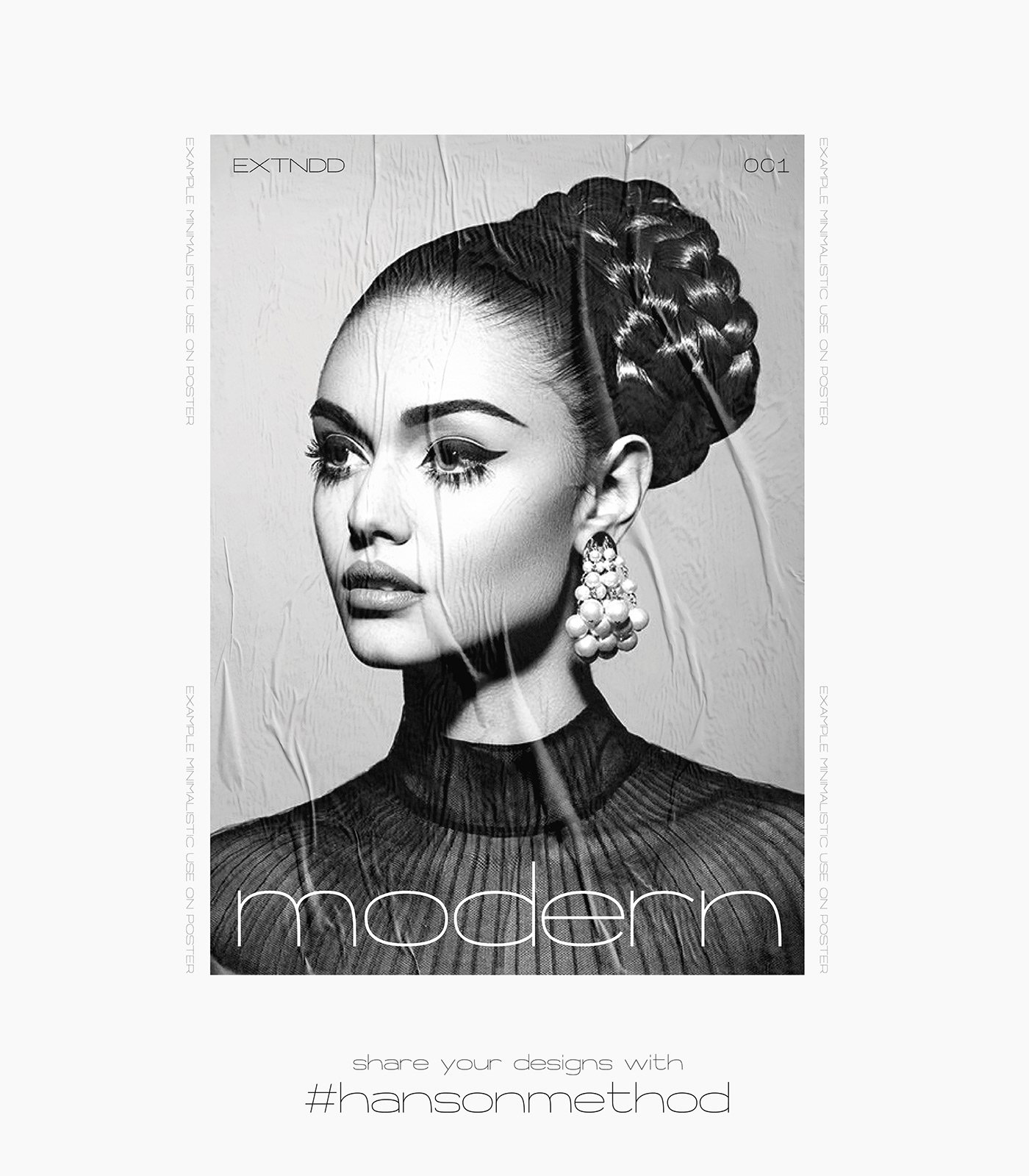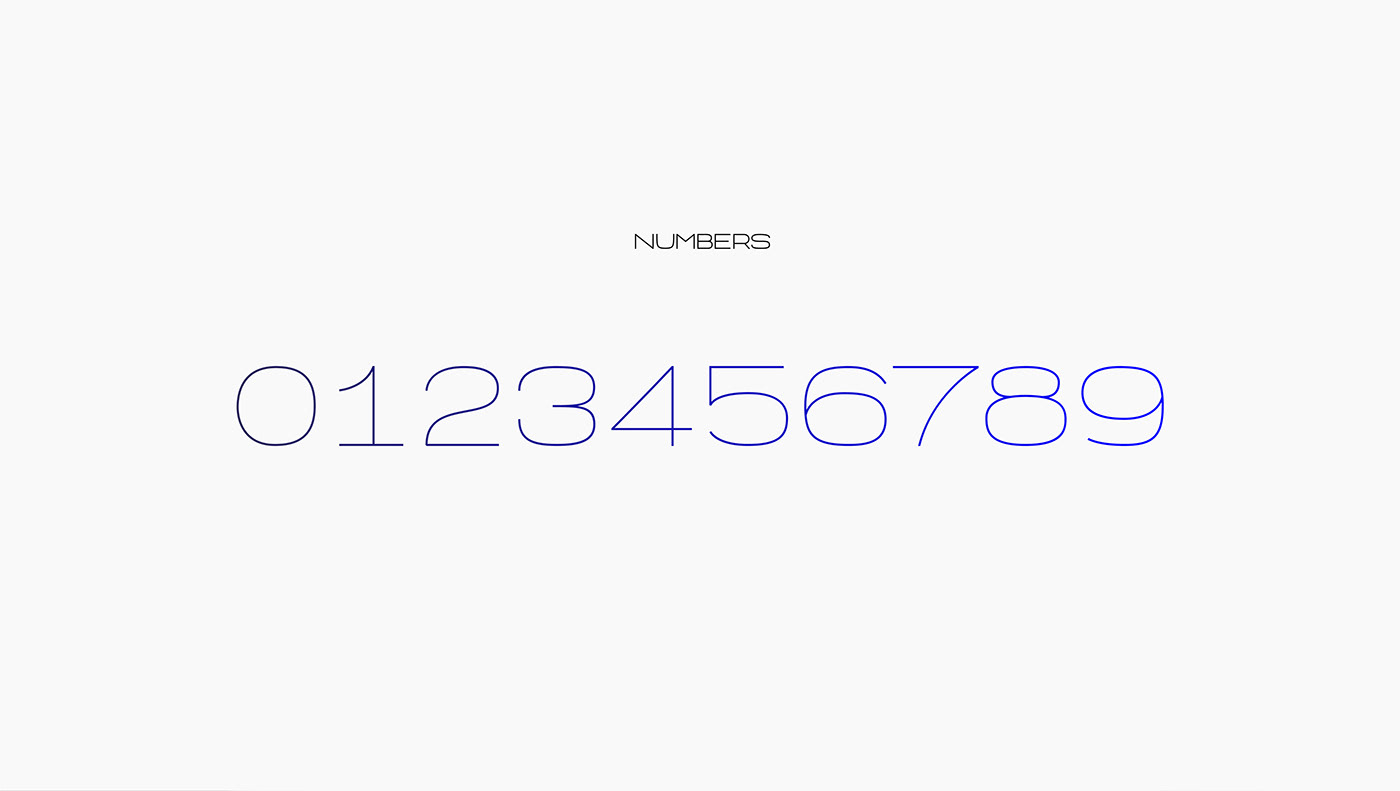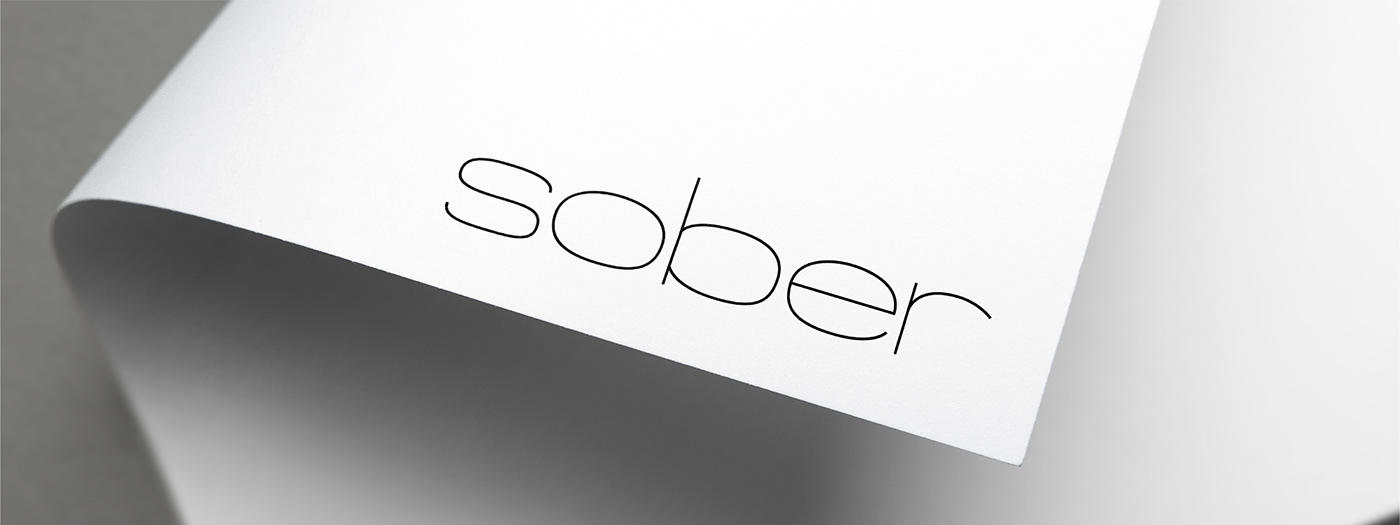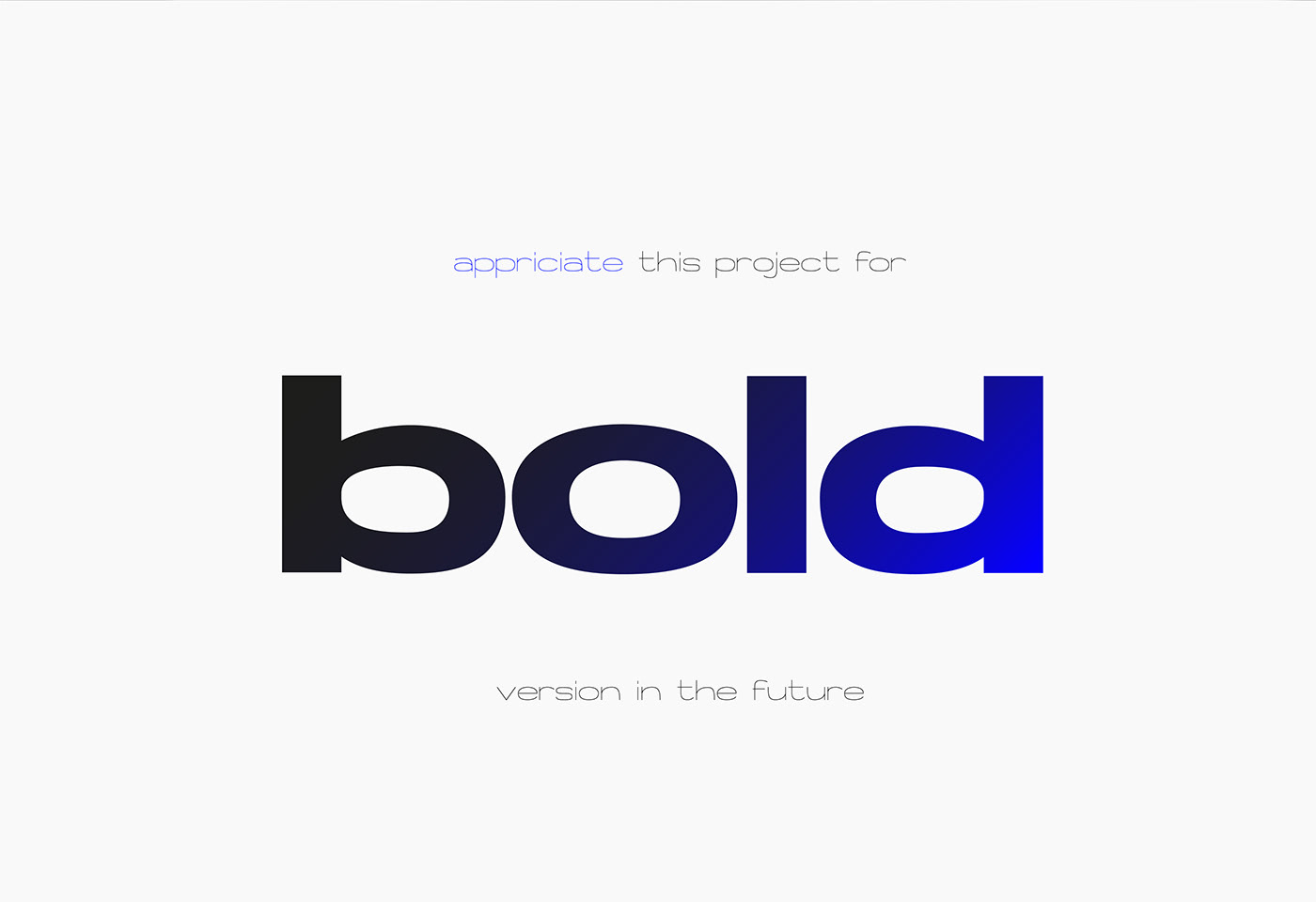
Hanson Hairline Font
This is an elegant, extended font which is currently the only one within its typeface. I am considering making a medium and bold version, however, this depends on the popularity of this font. So if you like this and want to see more free weights, be sure to spam comments, send me messages and appreciate this project! Cheers, Hanson Method